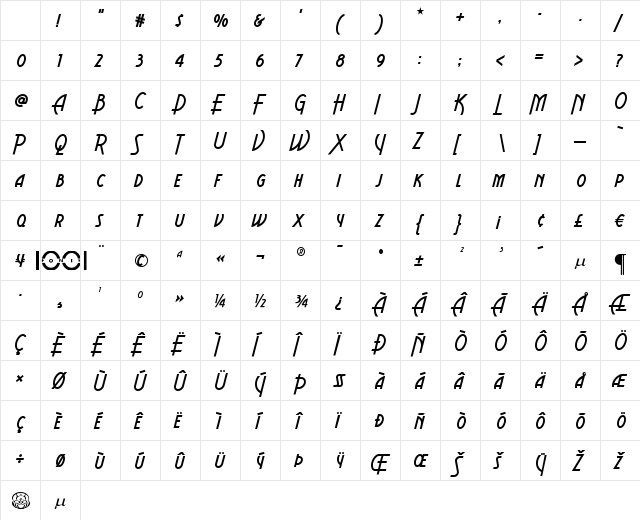
Complete Aerovias Brasil NF Regular glyph index. Displaying only characters natively supported by Aerovias Brasil NF Regular font.
Aerovias Brasil NF is a composed and adaptable typeface that performs quietly and consistently across a wide range of design contexts.